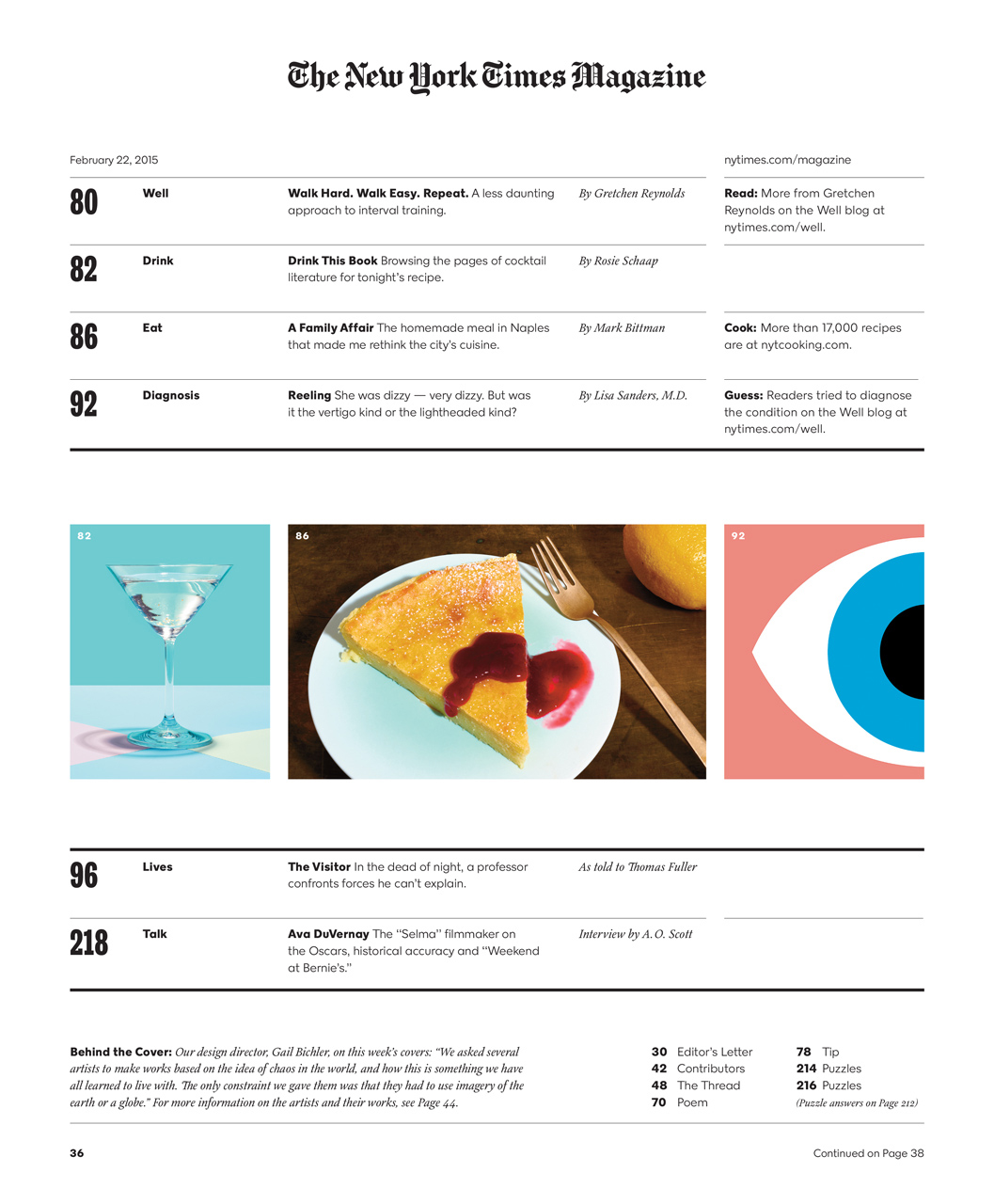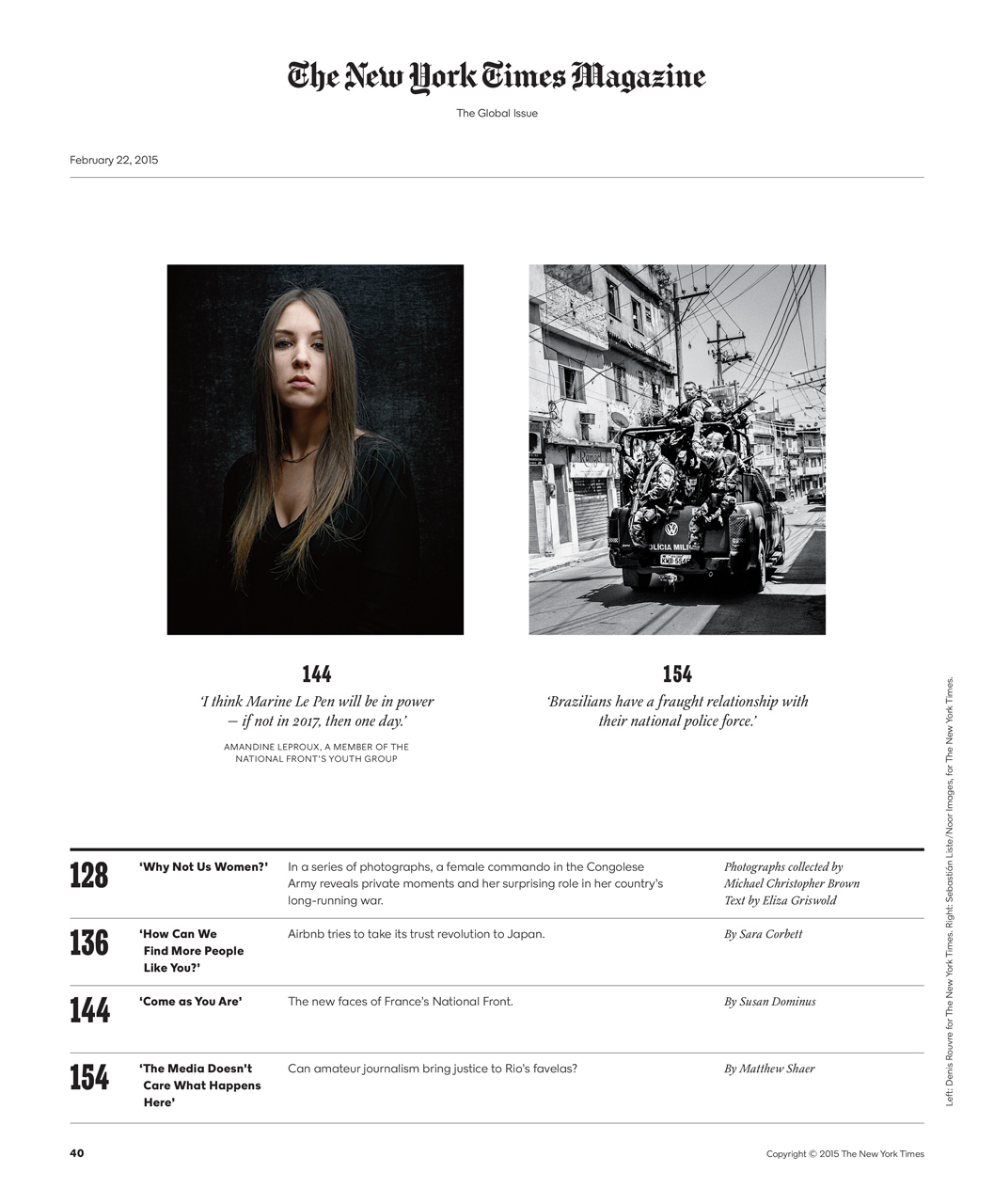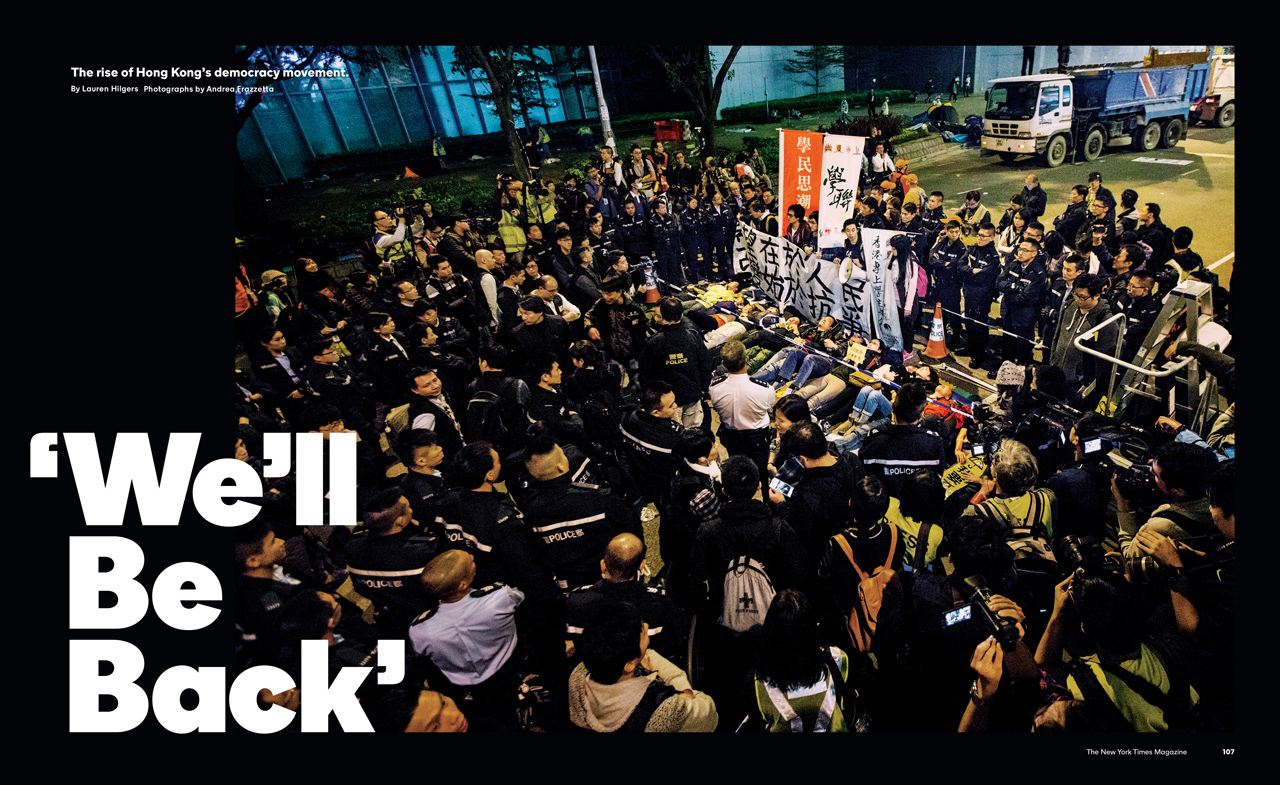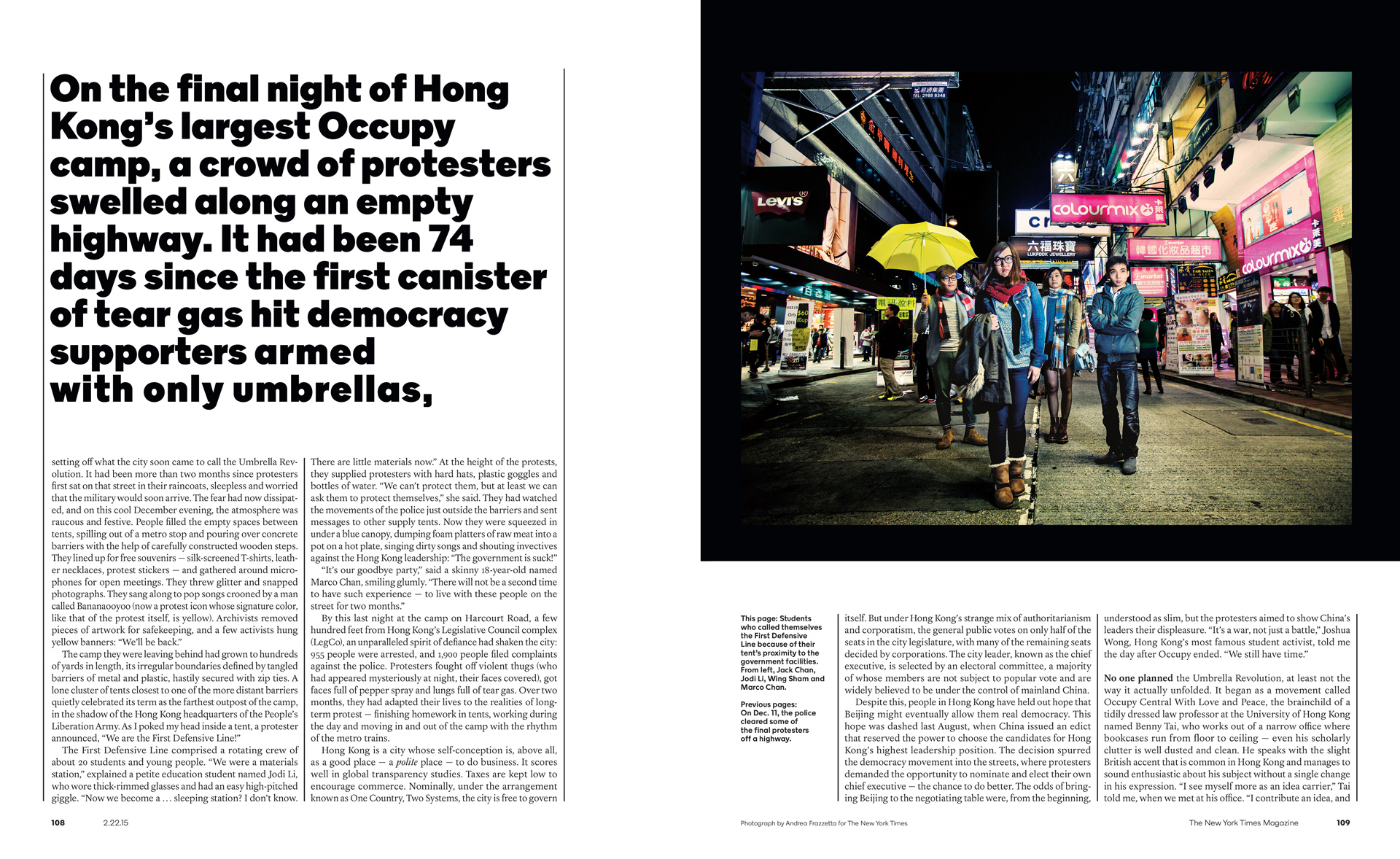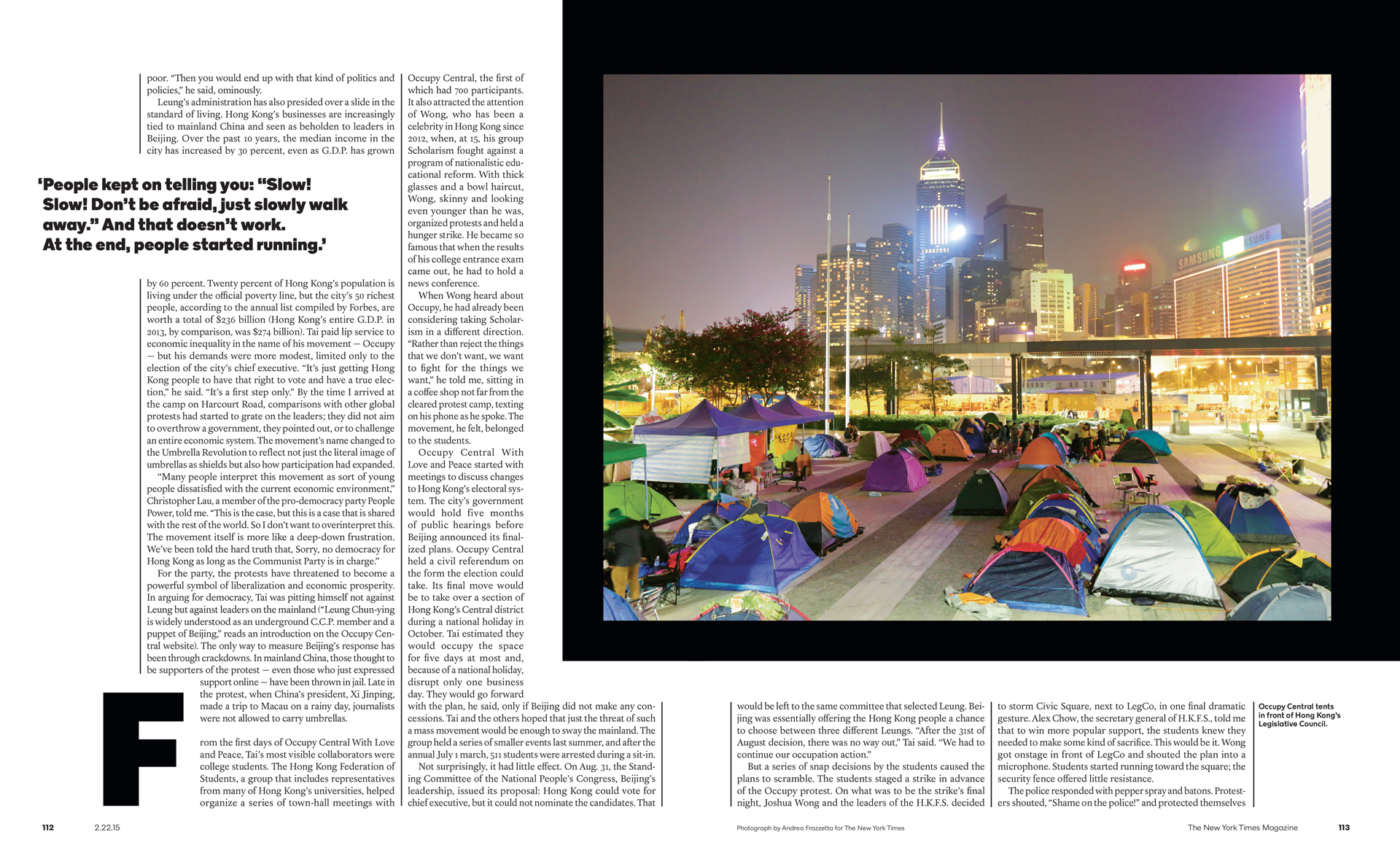
Bold! Modern! Classic! The New York Times Magazine Relaunches
This Sunday the nearly 119-year-old New York Times Magazine new version hit the shelves and everyone was amazed. New features, an updated logo, a new suite of fonts, and an abbreviated logo for use on social media are some of NYT’s brand new weaponry against the competition. “We have used the hammer and the tongs but perhaps not the blowtorch; we sought to manufacture a magazine that would be unusual, surprising and original but not wholly unfamiliar,” Jake Silverstein wrote in his editor’s letter. The magazine, which was last redesigned in 2011, has a “bold, clean layout. The new magazine logo and fonts will help distinguish magazine content from regular daily coverage online” commented a press release on the 220-paged debut issue of the publication.
The redesign was led by NYT Magazine’s design director, Gail Bichler, a 10-year veteran of The Times, along with art director, Matt Willey, a man of many talents and probably one of the most influential designers of out times. The typefaces, which include slab serifs for headlines and block elements, as well as modern-looking sans serifs and elegant-looking serifed fonts were designed for the New York Times by A2-Type. Gail and Matt oversaw the creation of this, nameless up to now, entire suite of typefaces which gives the magazine a more book-like feeling.
The new layout is designed by former GQ art director Anton Ioukhnevets and it gives a neat and more stripped down look to the the single-most widely read section of the Sunday paper by far -according to the Times’ own internal figures, more than 90% of Sunday subscribers read the Magazine. “Not a single letter in this relaunch issue has ever seen the light of day. They are infants; treat them gently” writes Silverstein in his introductory letter to the new version of a publication that is appreciated by nearly four million people every weekend. The magazine’s logo redrawn by the typographer Matthew Carter is more modern, “more graciously spaced” and is accompanied by a cousin, a short-form logo, which will be used in smaller and more casual settings like social media.
The typefaces, which include slab serifs for headlines and block elements, as well as modern-looking sans serifs and elegant-looking serifed fonts were designed from scratch
“Not a single letter in this relaunch issue has ever seen the light of day. They are infants; treat them gently”